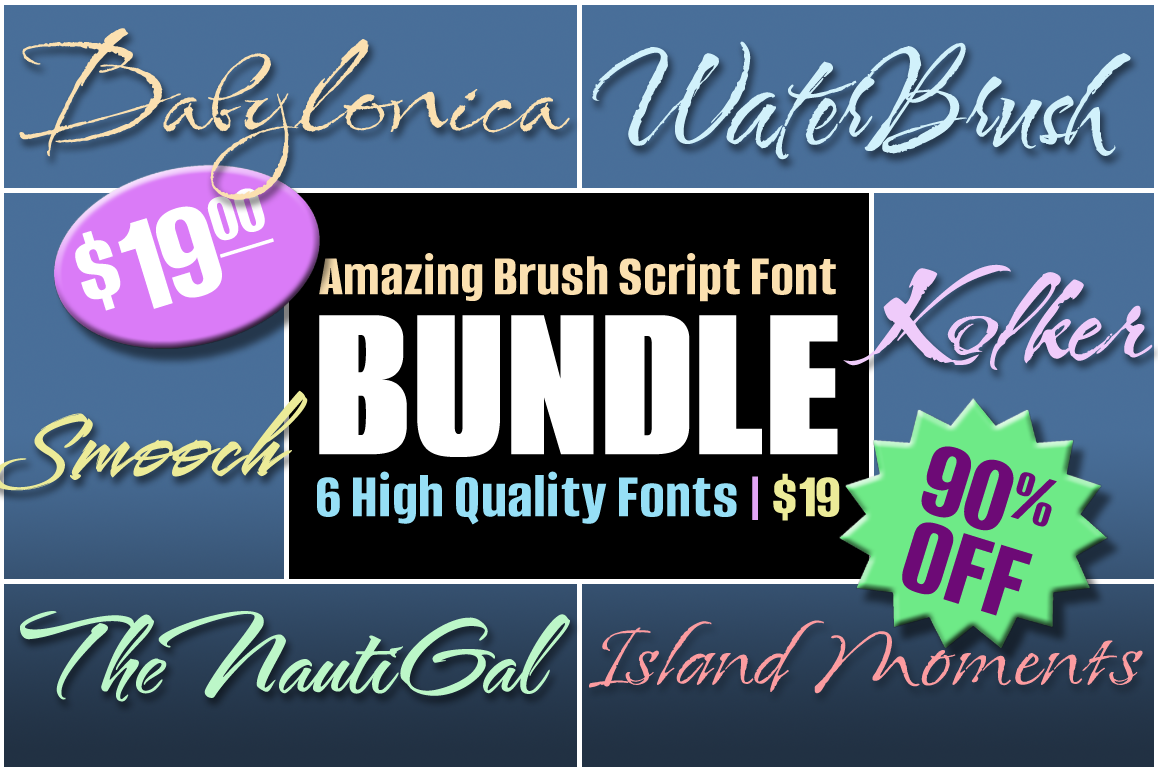
TheNautiGal-Light
KolkerBrushROB
WaterBrush_Revision
SmoochPro
Babylonica
IslandMoments-Pro
Babylonica
is a dynamic calligraphic style with with uppercase forms that make the eye dance.
Kolker Brush is a bit bolder and will compliment any watercolor piece of artwork.
Smooch Pro is one of TypeSETit's latest releases and comes with an extensive character set that includes sans serif titling forms that contrasts this fast past brush style.
The NautiGal was originally conceived large lettering on the back of a friend's yacht. It is clean and stylized with wonderfully swashed cap forms.
WaterBrush has a bit more of a bouncy, gestural feel— perfect for work that has that care free attitude.
Island Moments ...take a mental break and imagine your very own tropical paradise, which similar to Babylonica, has a calligraphic feel, but less extended and more legible character.